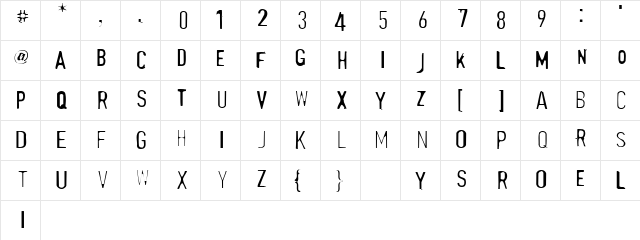
Fin Regular
Design Context for Fin Typeface
Fin takes a measured approach to typography — its balanced proportions and neutral character make it a reliable workhorse for both digital and print work.